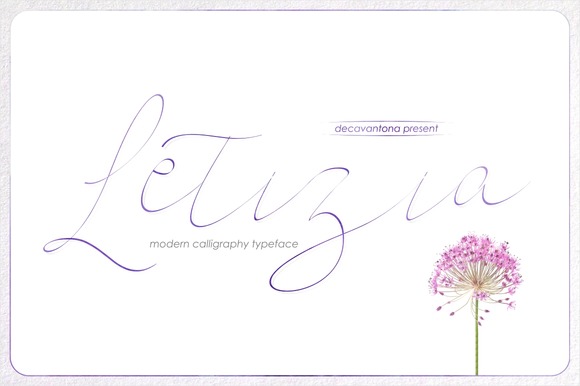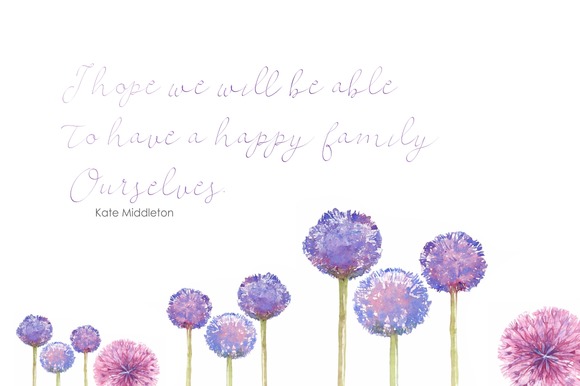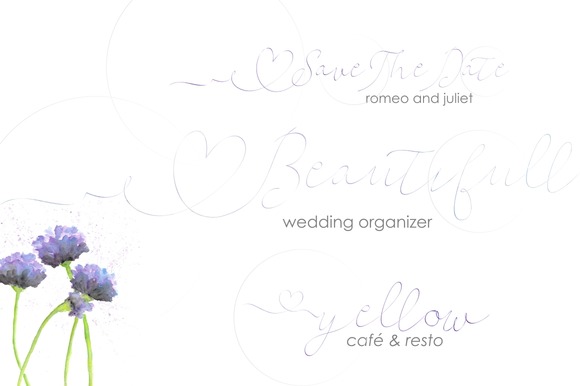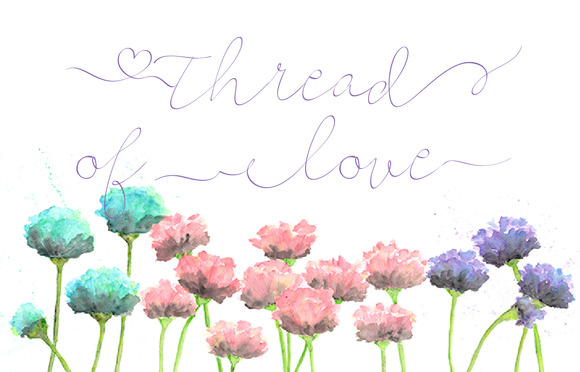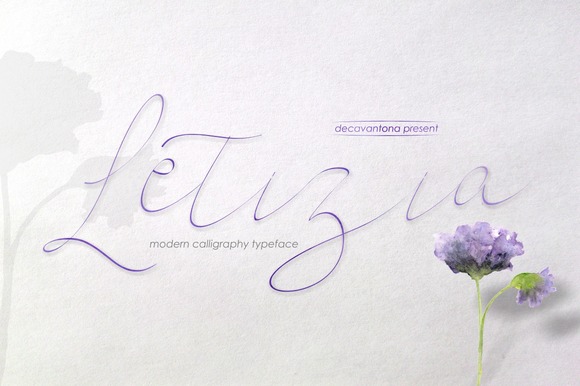
Letizia Script
Letizia Script Font
Letizia is a hand calligraphy font with elegant taste like cotton yarn is soft and smooth. The fonts can be used for things such as cards, posters, signage, wedding invitations, catalogs, book covers and much more! The Letizia has a unique style of simple can be combined with the letter display.